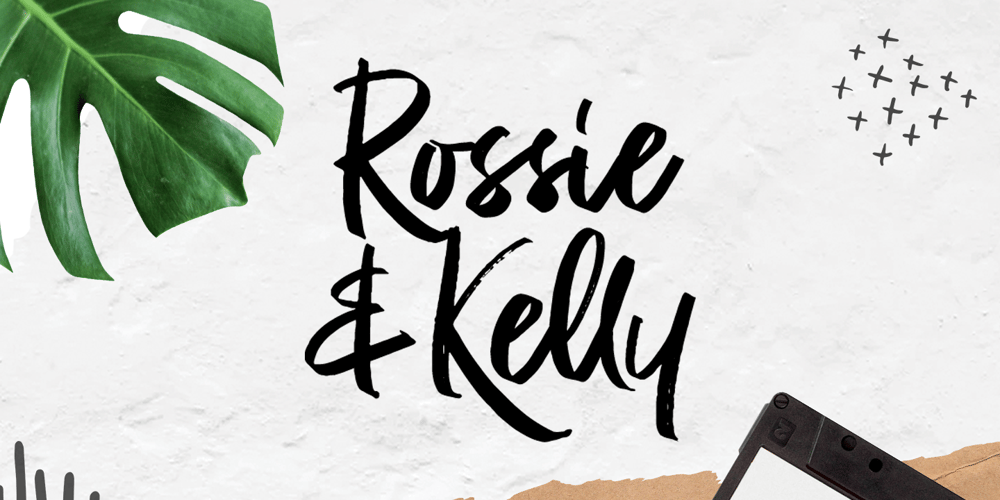
Rossie Kelly
Rossie Kelly font
Rossie Kelly Font Family was designed by Sarid Ezra and published by Sarid Ezra. Rossie Kelly contains 1 styles and family package options. Rossie Kelly is a handmade font. You can use these fonts for various purposes such as making realistic handwriting, for promotions, or other purposes that will make your design more real as handmade. This font also contain alternates to each characters, along with ligatures.